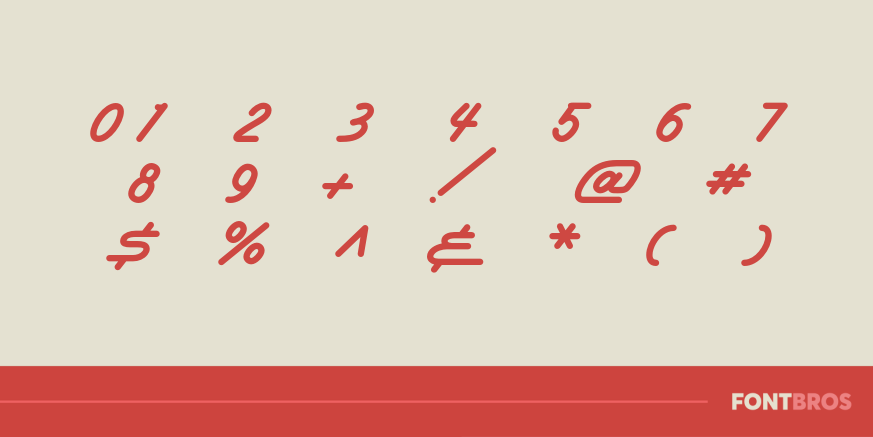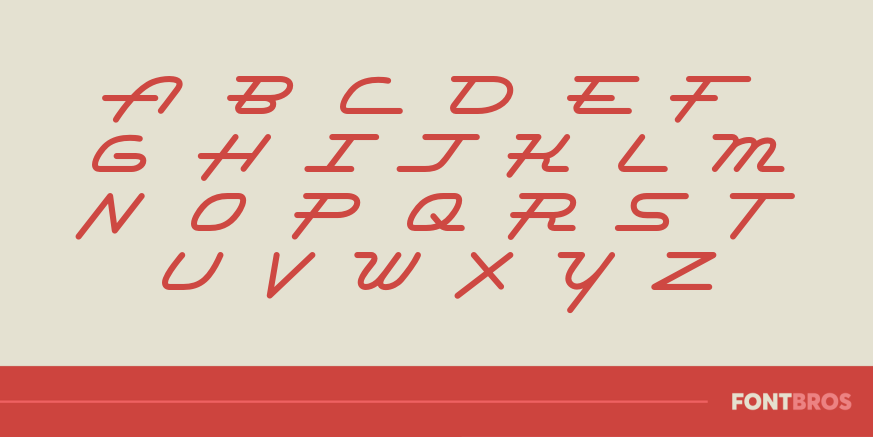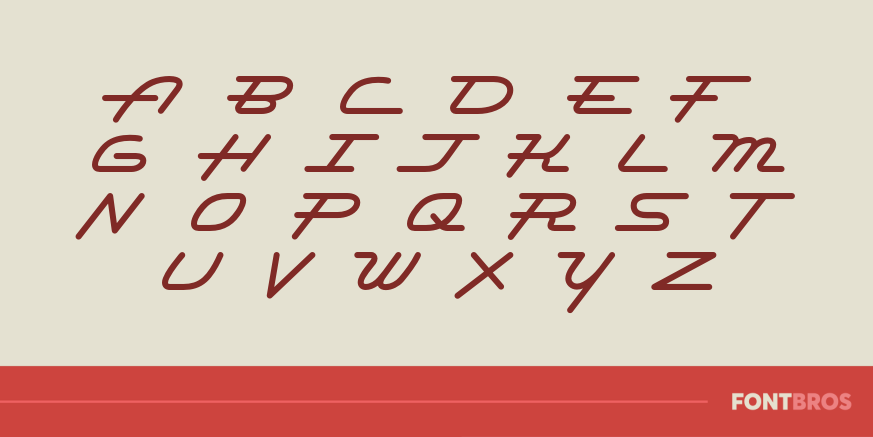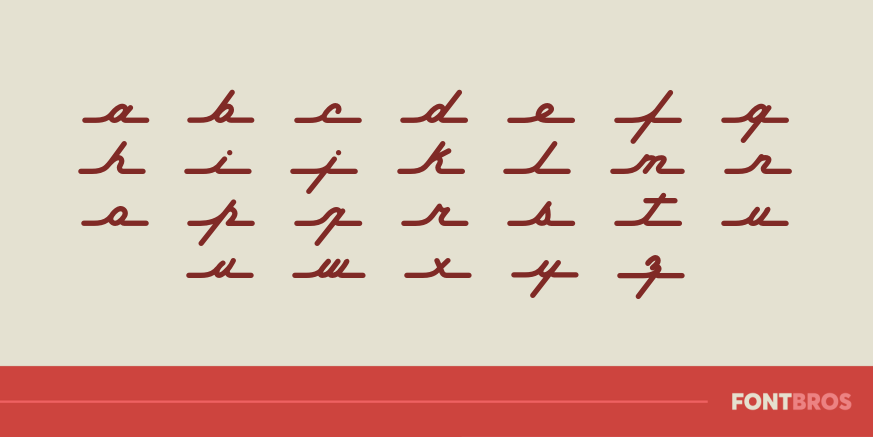
Permanent Waves Expanded
Font Family by Font Diner
Want to ride a little longer? Get Permanent Waves Expanded for long drives and easy miles featuring a wider sleeker compliment to the original!